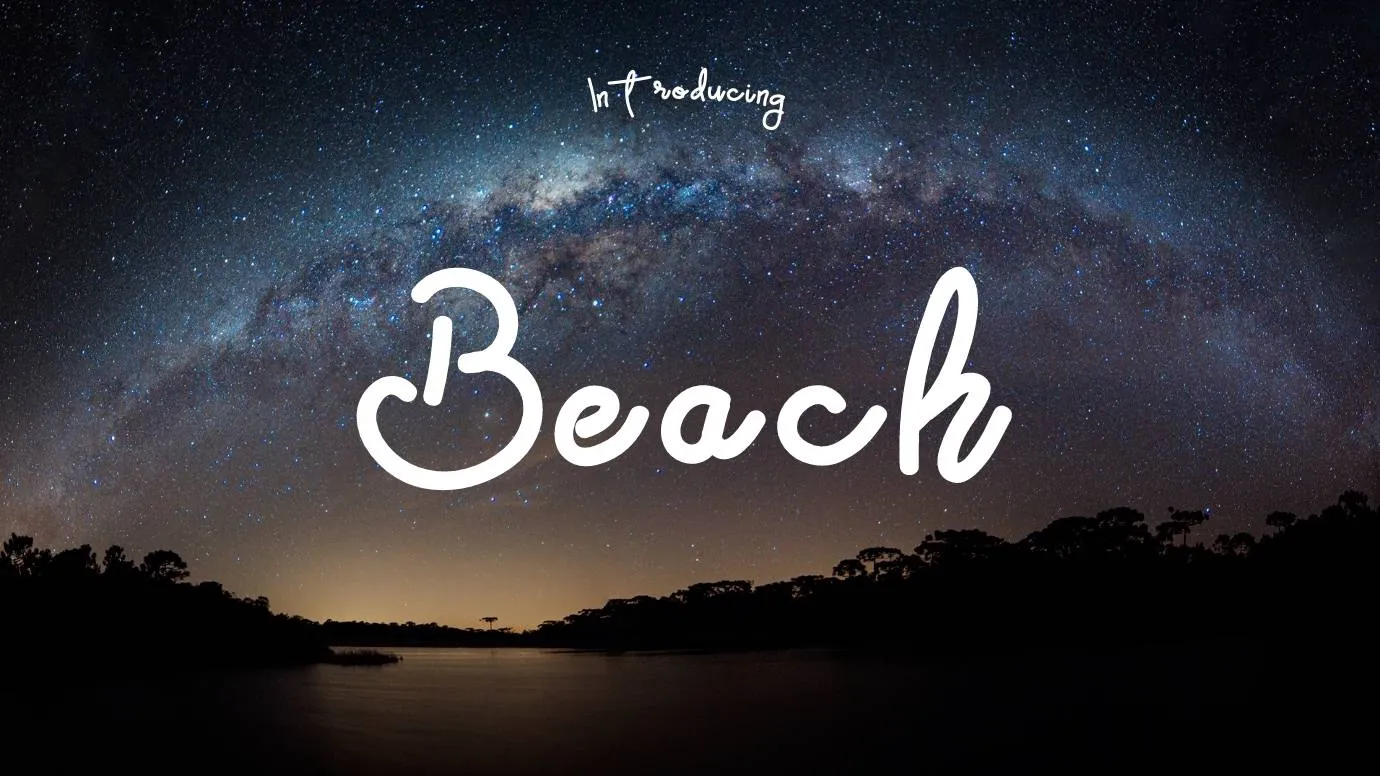
Beach Font Family is a calligraphic handwritten font with a lot of classic characteristics. A famous font Studio which is known as Graphix Line Studio took charge of the creation of this typeface.
In the year 2004, the designing process of this typeface was completed and it comes into the font industry. This typeface belongs to the category of the Handwritten family of textures.
Beach Font